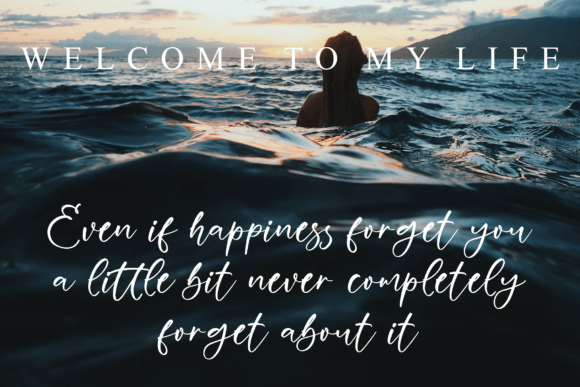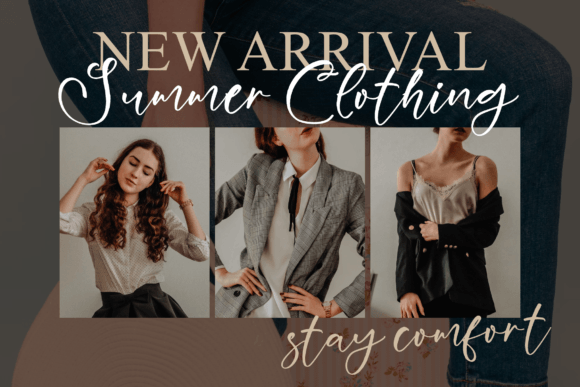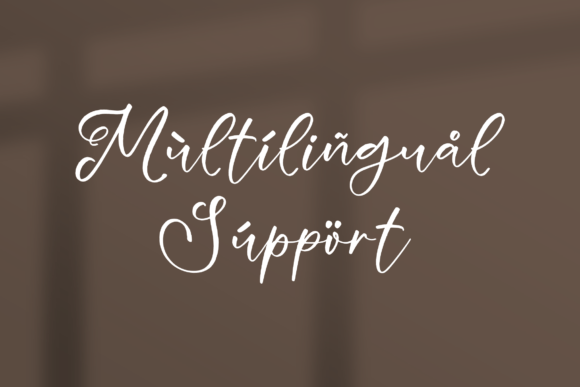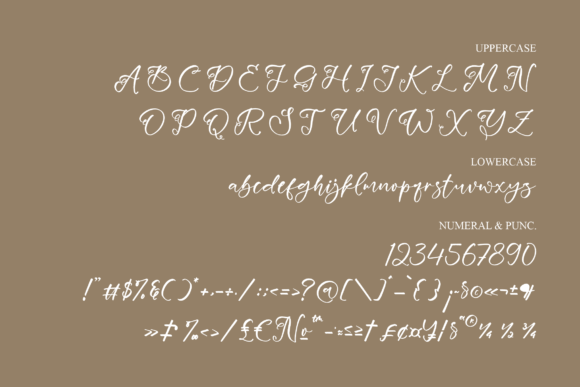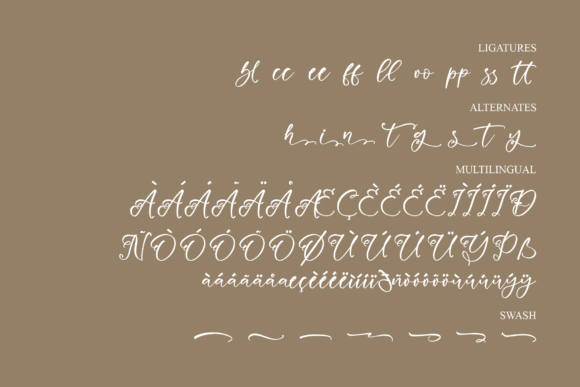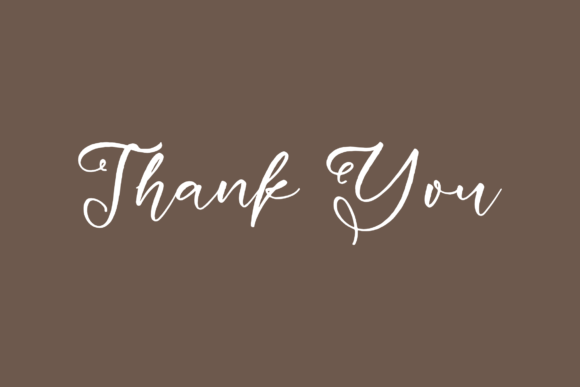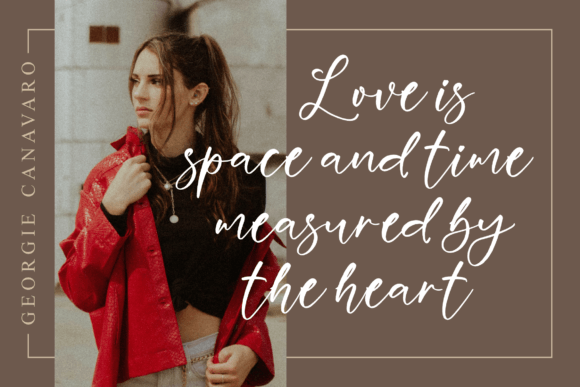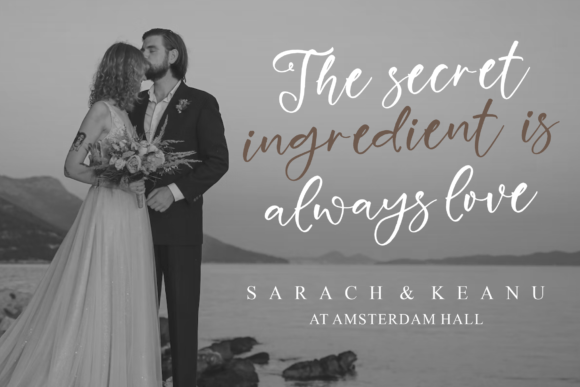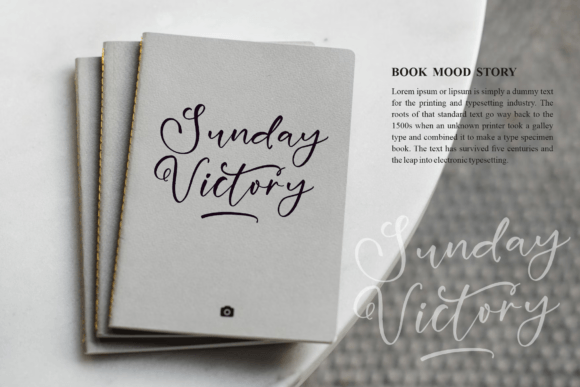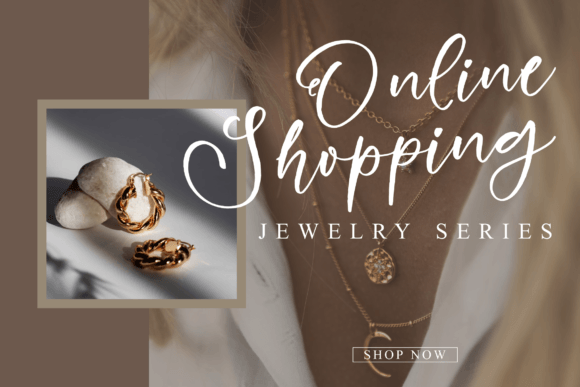
Meylable Nastika Font
The Meylable Nastika Font Download is a delicate and elegant handwritten script designed to elevate your creative projects. With its flowing lines, well-balanced characters, and graceful rhythm, this font combines modern usability with timeless handwritten charm. Whether you are designing invitations, logos, or editorial layouts, Meylable Nastika brings sophistication and style.
A Delicate and Flowing Handwritten Typeface
The Meylable Nastika script font features smooth handwritten strokes paired with refined details. As a result, it feels elegant yet approachable. Furthermore, its versatile design allows it to adapt to multiple creative uses, from small stationery items to bold branding projects.
Handwritten fonts are perfect for projects that require a personal touch. The Meylable Nastika Font is ideal for wedding invitations, thank you cards, holiday notes, and seasonal greetings. Because of its natural flow and balanced curves, every piece of stationery feels polished and unique. In addition, it helps capture warm and elegant emotions in your designs.
Branding and Logo Design with Meylable Nastika Font
Typography is central to a brand’s identity. The Meylable Nastika handwritten font is an excellent choice for boutique logos, packaging, and creative campaigns. Its handwritten elegance conveys sophistication and trust. Therefore, it works especially well for fashion, lifestyle, and artistic industries.
Posters, Editorials, and Creative Displays
The Meylable Nastika Font Download also performs beautifully in posters, book covers, magazines, and social media quotes. Its flowing handwritten style ensures readability while adding flair. Consequently, it is a reliable typeface for both promotional and editorial projects.
In today’s creative space, fonts must be flexible across platforms. The Meylable Nastika typeface integrates smoothly into Instagram posts, Pinterest boards, YouTube thumbnails, and blogs. Because of its graceful handwritten flow, it makes digital designs engaging and visually appealing.
Why Designers Choose Meylable Nastika Typeface
Designers value fonts that balance creativity with clarity. The Meylable Nastika handwritten script offers sophistication while remaining legible and adaptable. Moreover, its timeless design ensures it remains stylish across future projects, making it a dependable choice for both professionals and hobbyists.
Add Elegance to Your Projects Today
If you are searching for a handwritten script that feels delicate, elegant, and versatile, the Meylable Nastika Font Download is the perfect choice. From invitations and greeting cards to branding, posters, and digital layouts, it enriches every project with style. Finally, download Meylable Nastika today and bring timeless handwritten charm to your designs.